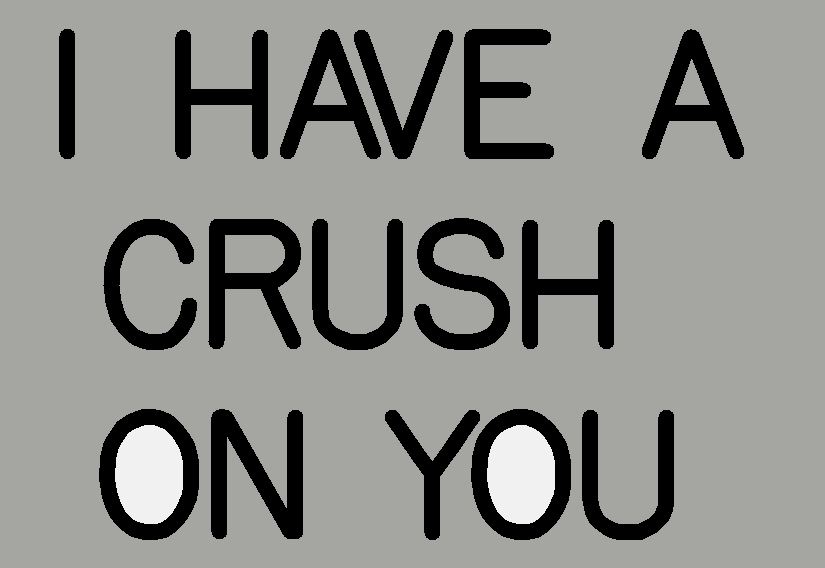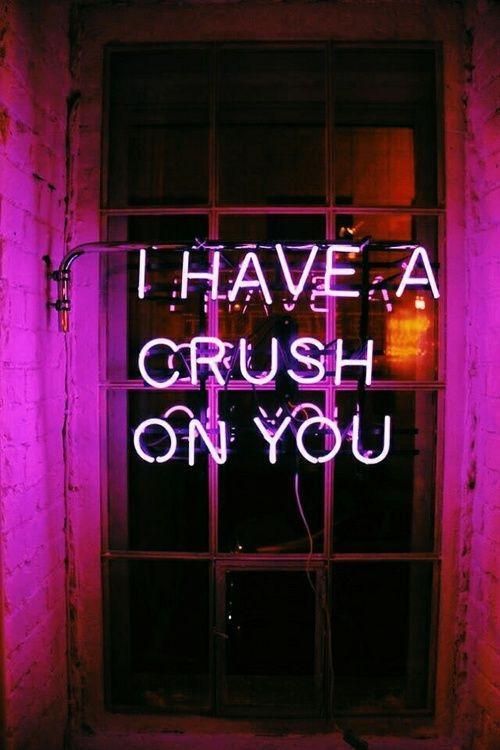
Neon Font
Does anyone know what font this neon text is? Or even something close
Given that is a real, single stroke neon sign the source typeface could be any number of possibilities. I think the proportions are kind of close to ITC Franklin Gothic (the "R" feels right).
Looks like Gerber's E Single Line. It's what I use whenever I'm showing single line neon in a proof.